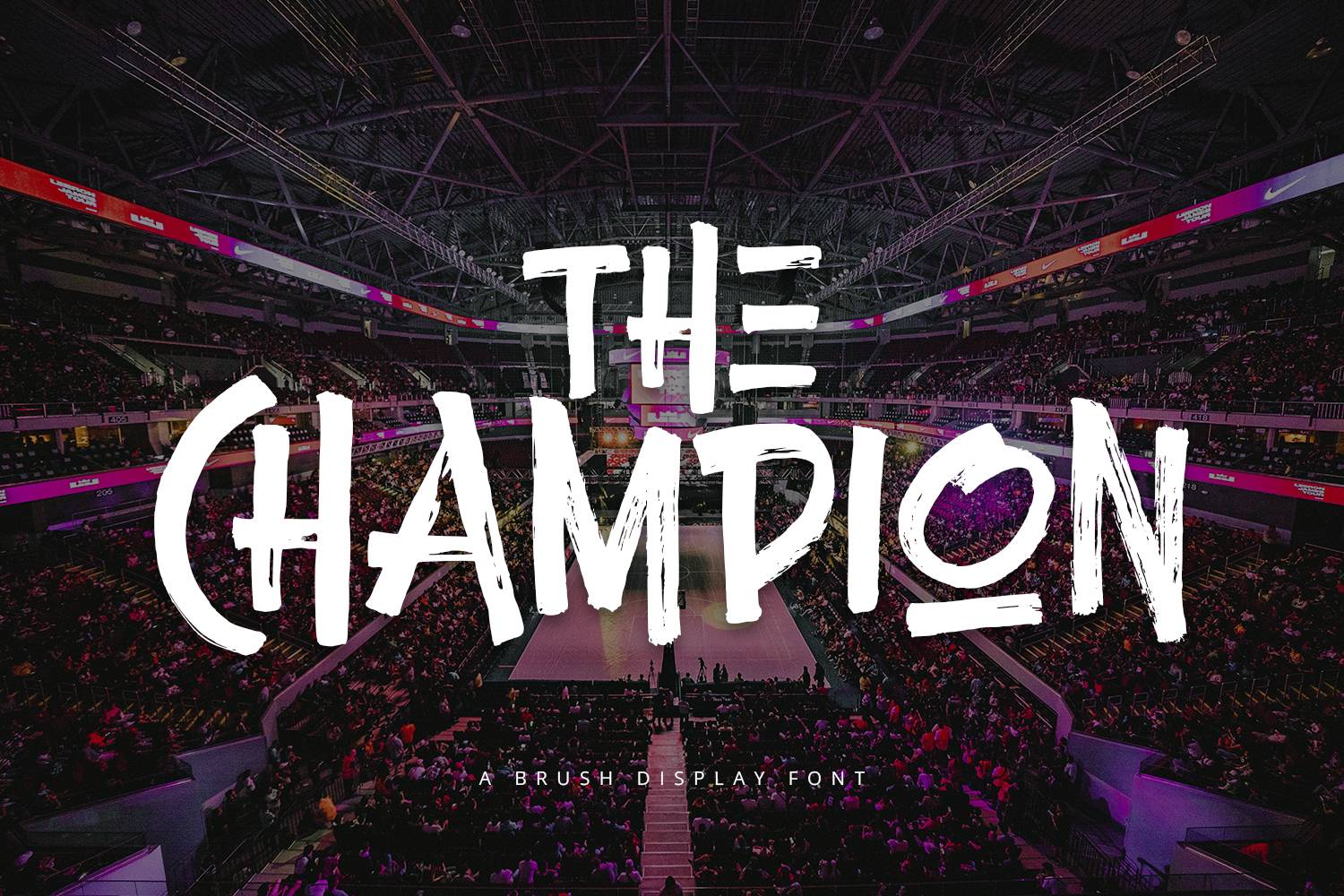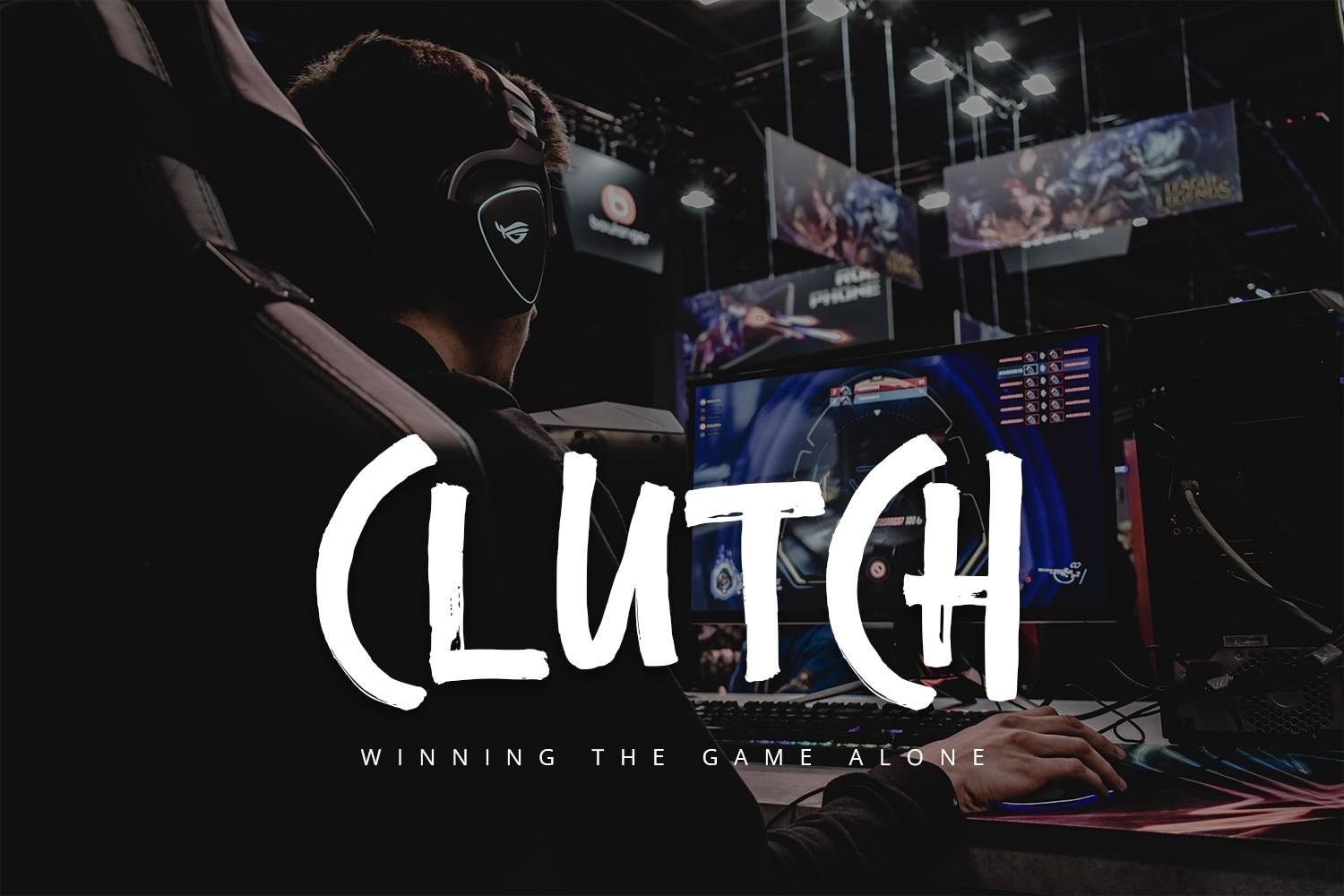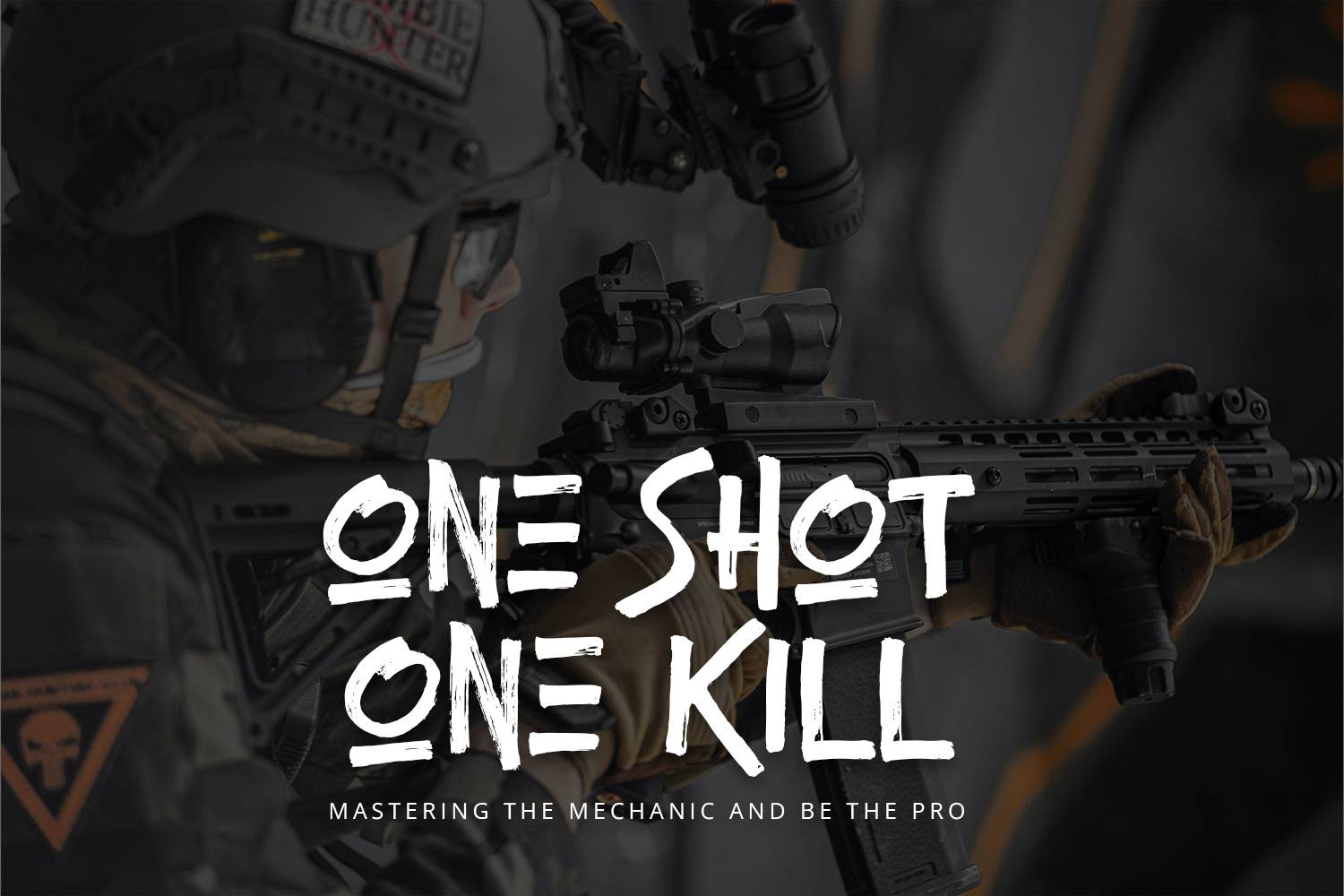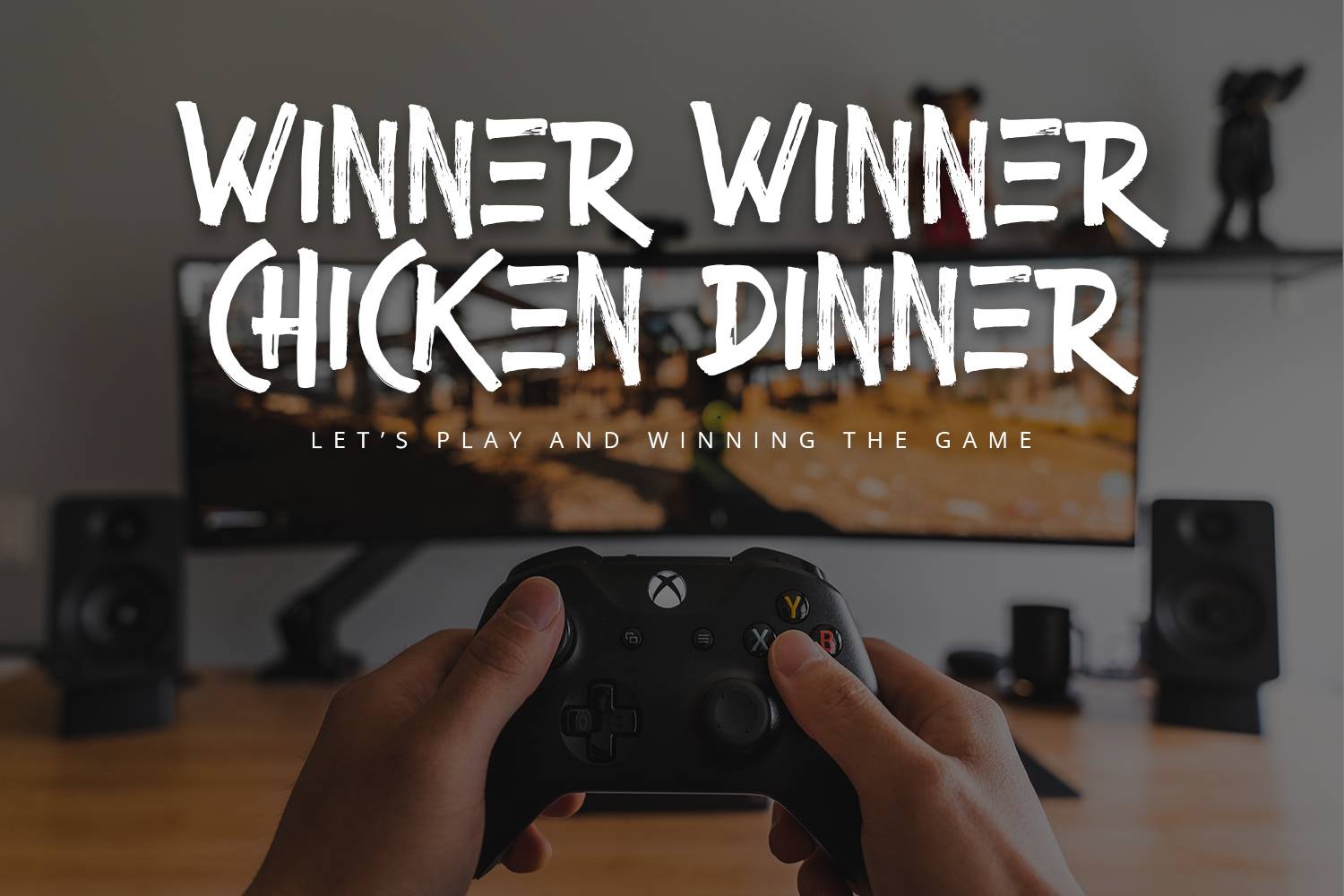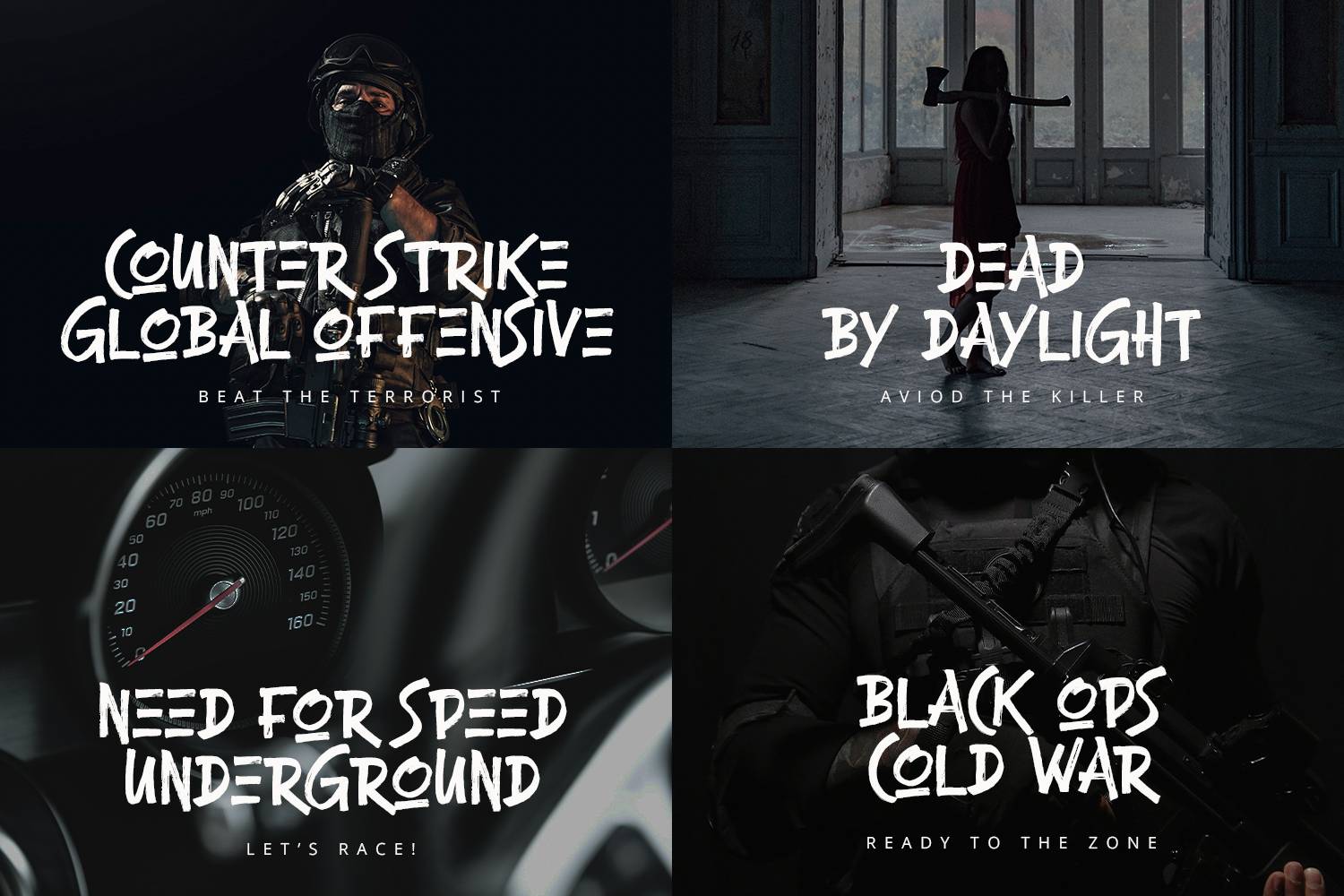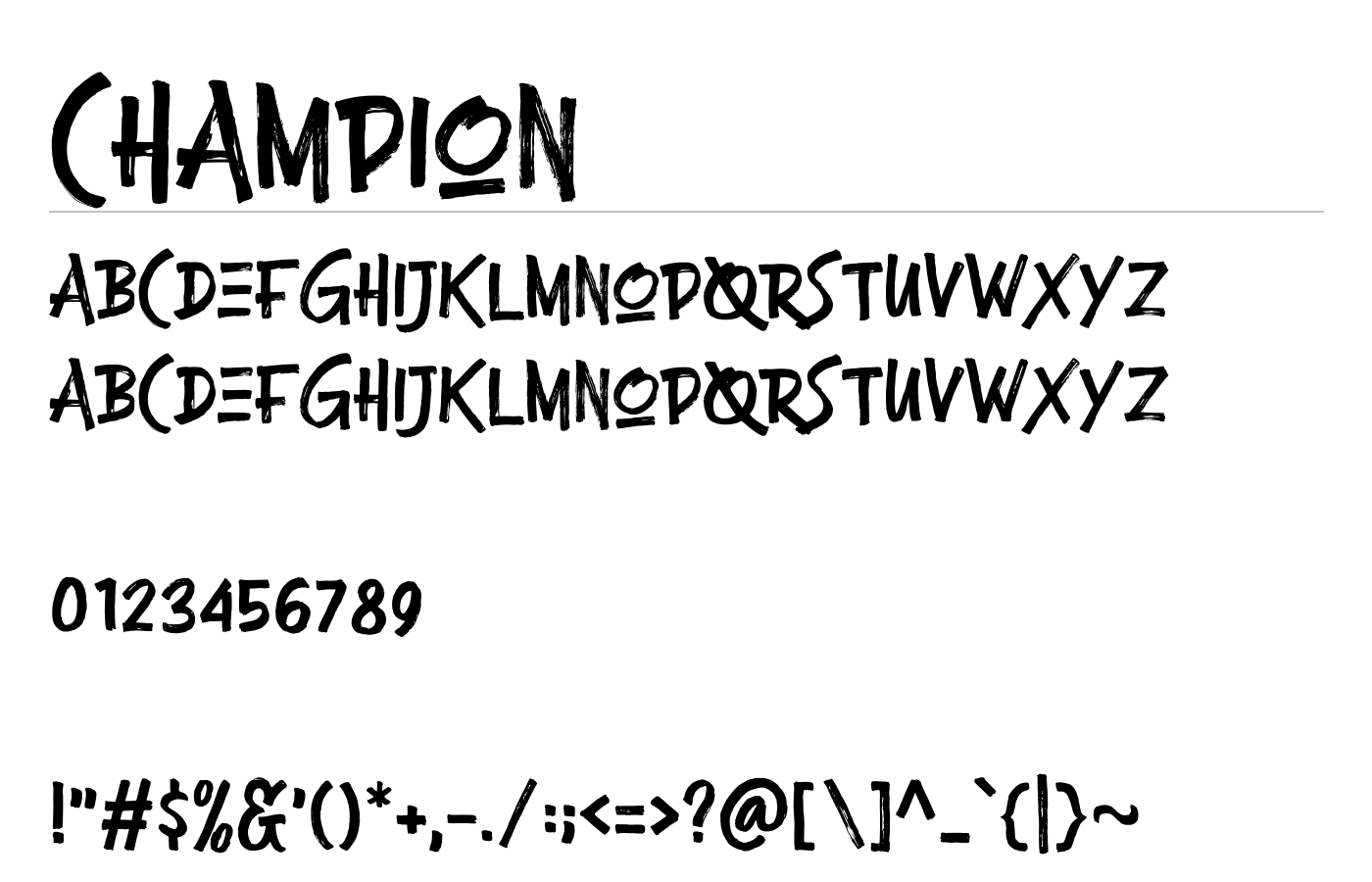
Champion Font is a bold, hand-drawn sans serif typeface with an edgy, brushstroke style that conveys energy and creativity. Its uneven, textured lines give it a lively, informal feel, making it ideal for dynamic headlines, posters, and branding that require a playful and artistic touch. This font works well in designs that want to stand out with a hand-crafted, urban vibe.
Champion Font